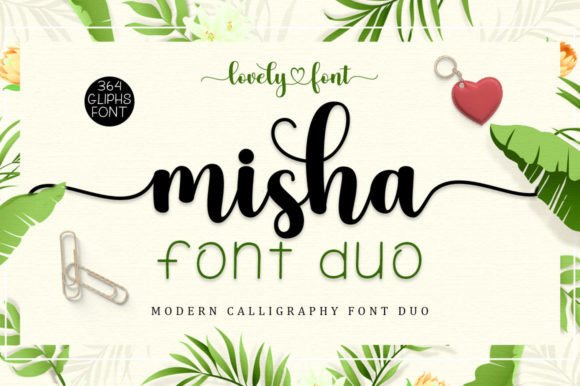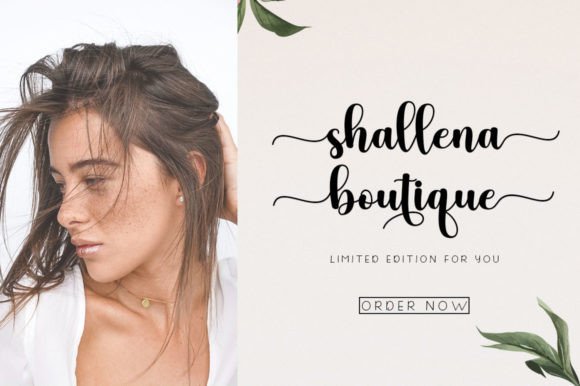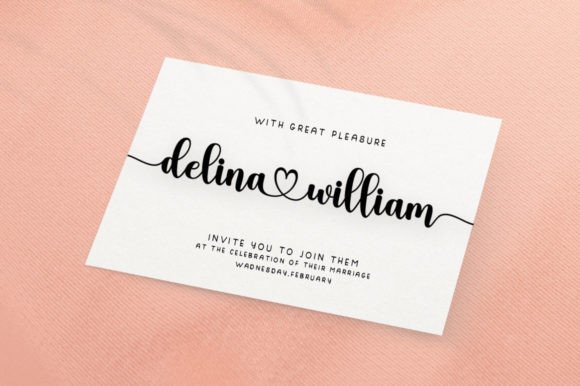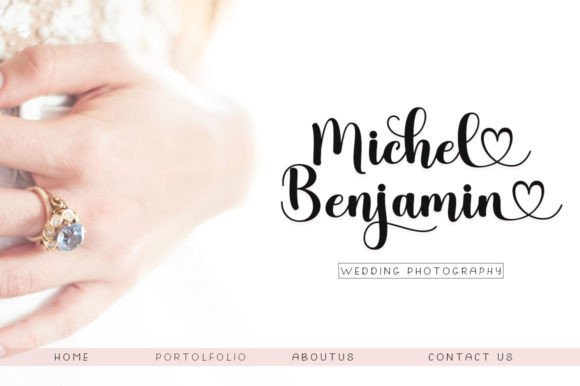
Misha Font
About the Misha Font
Step up your design game with Misha Font, a font that exudes confidence and style. Misha is a beautiful, elegant duo font (handwritten and sans) that exudes sophistication and grace. With its delicate curves and fluid lines, this font is perfect for adding a touch of elegance to any project, whether it be wedding invitations, social media graphics, or branding material. Remember that the font is PUA encoded, meaning that you can access all delightful glyphs and swashes effortlessly.
Misha’s elegant, handwritten style is ideal for headlines, short text blocks on branding materials, and invitations. It shines in applications requiring a touch of refined femininity, such as luxury product packaging or social media campaigns targeting a sophisticated audience. However, its delicate nature makes it unsuitable for body text or UI elements where readability is paramount. Extended use could lead to fatigue.
Pairing Misha with a clean sans-serif like Lato or a geometric sans-serif such as Montserrat provides excellent contrast and enhances legibility, grounding the script’s fluidity. For a more playful feel, a rounded sans-serif could work well. Avoid pairing with other highly decorative fonts to prevent visual clutter.
Misha projects an overall personality of sophisticated elegance and gentle grace. Its delicate curves and swashes lend themselves to brands emphasizing luxury, artistry, or feminine aesthetics. It’s best used sparingly to maximize its impact.